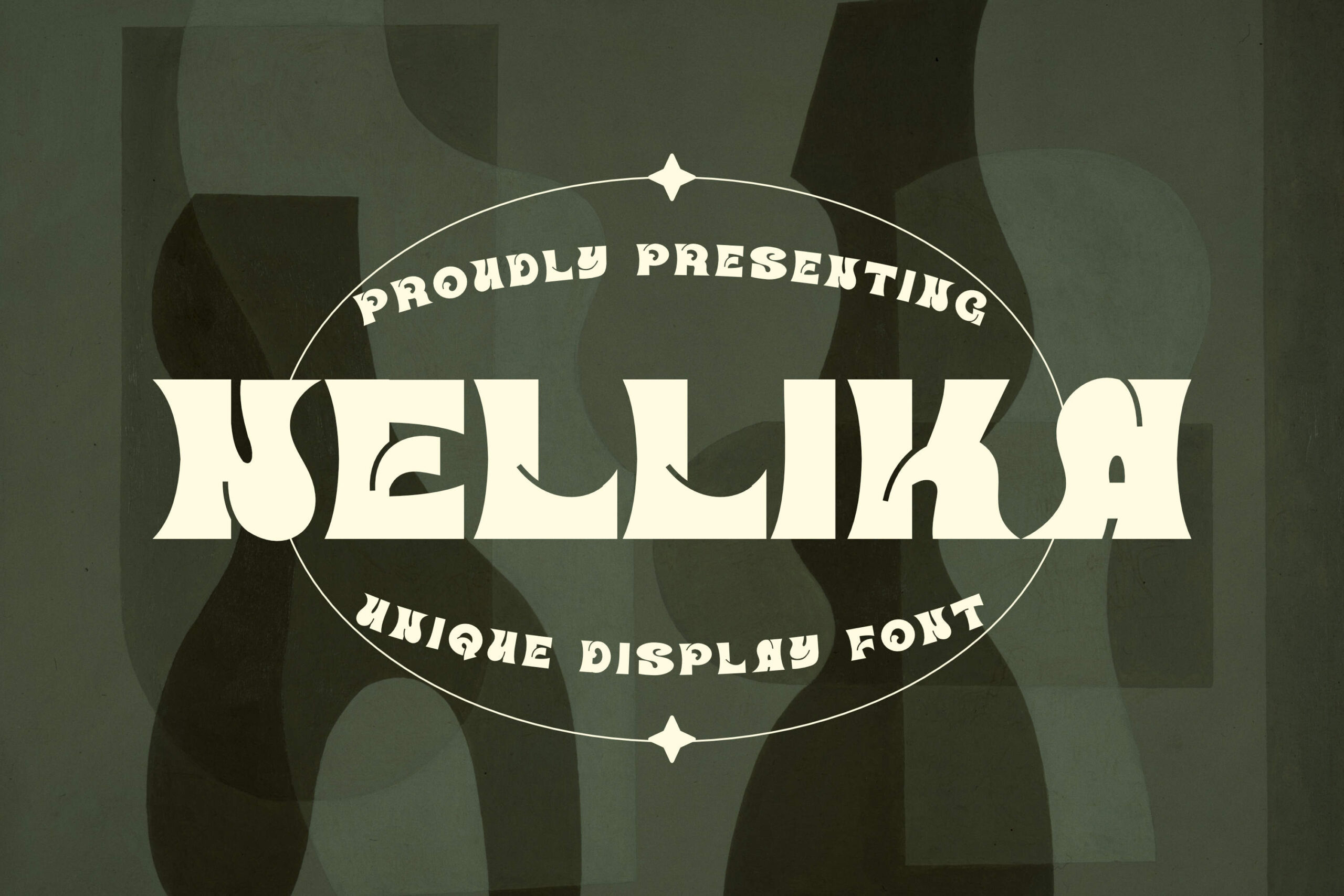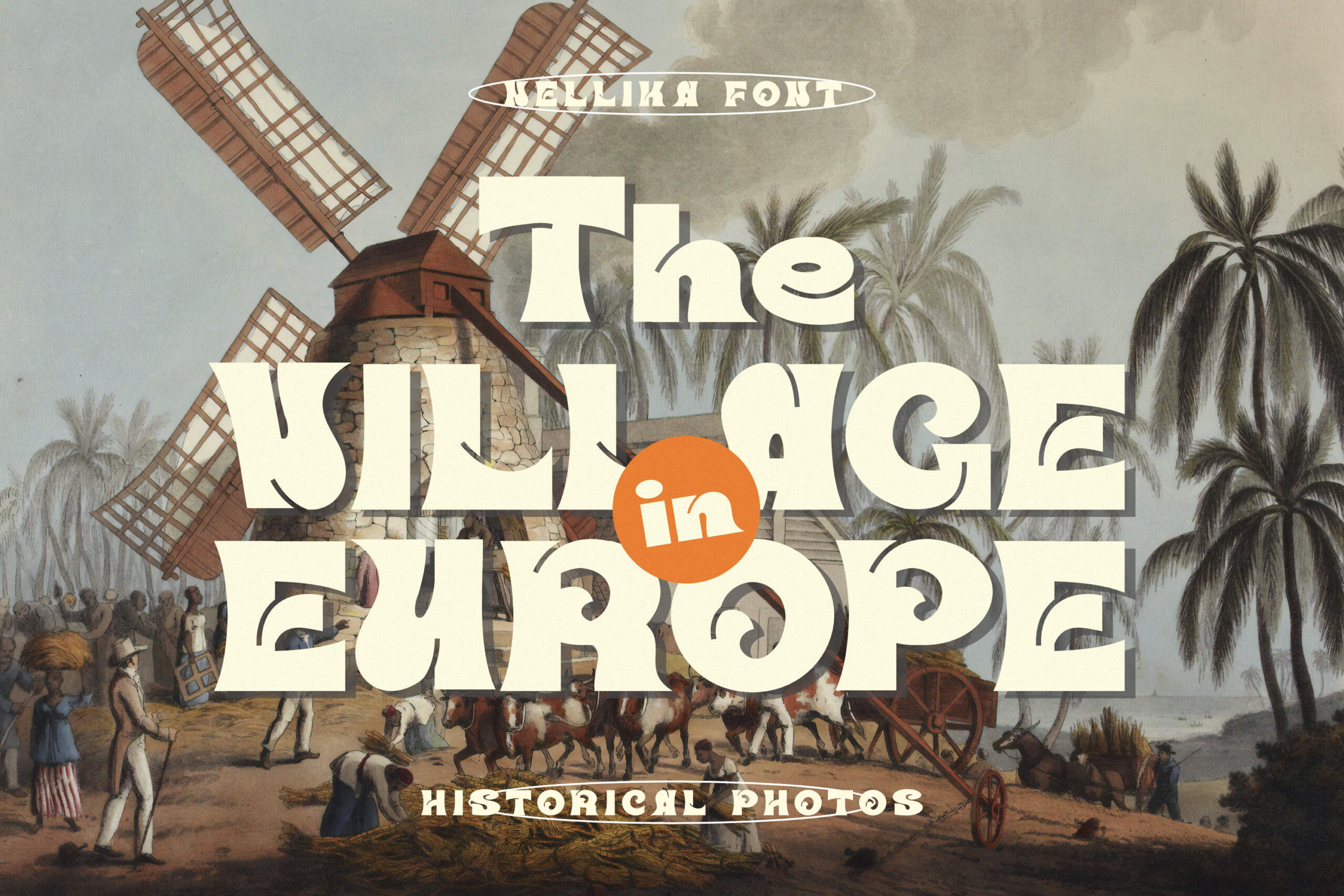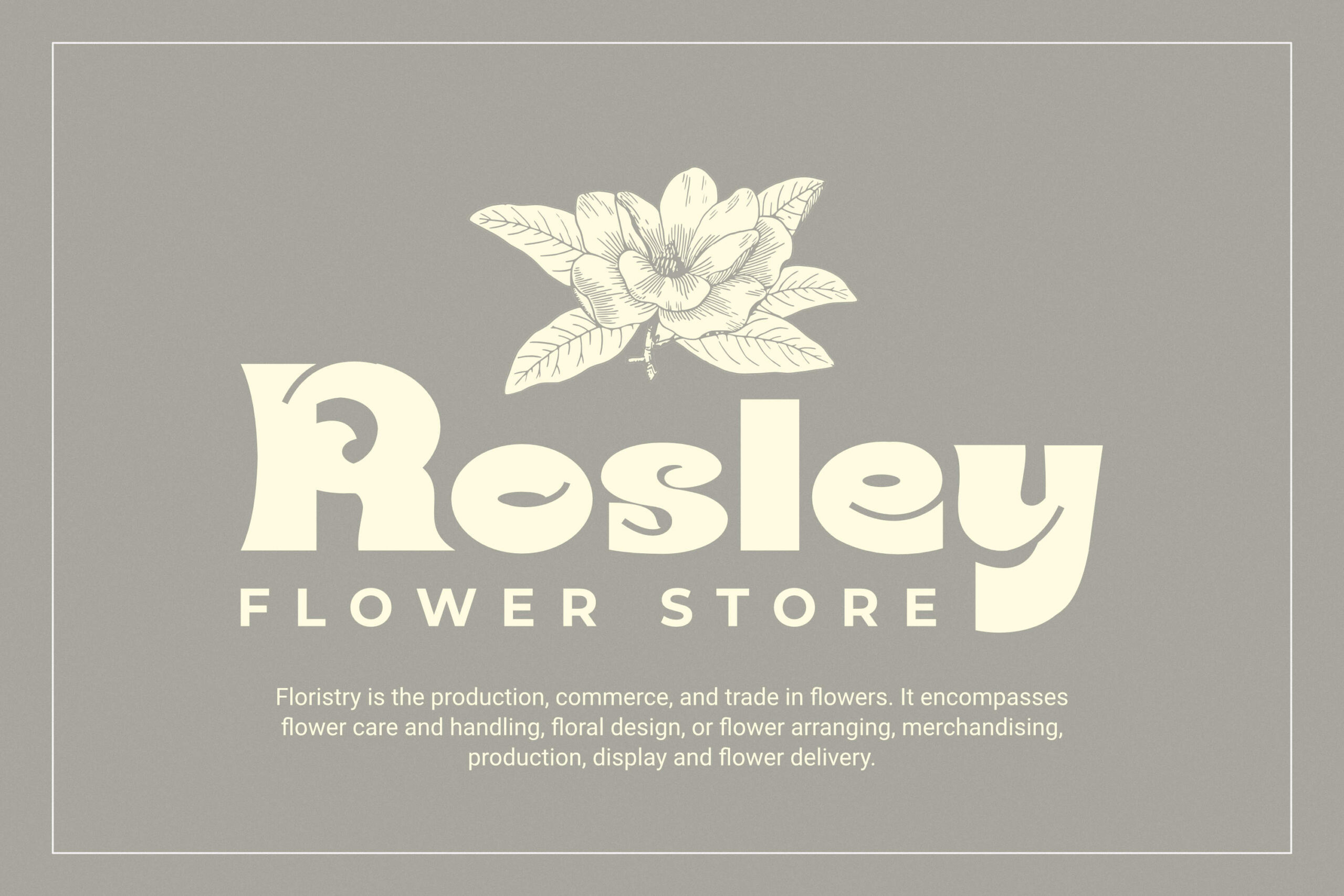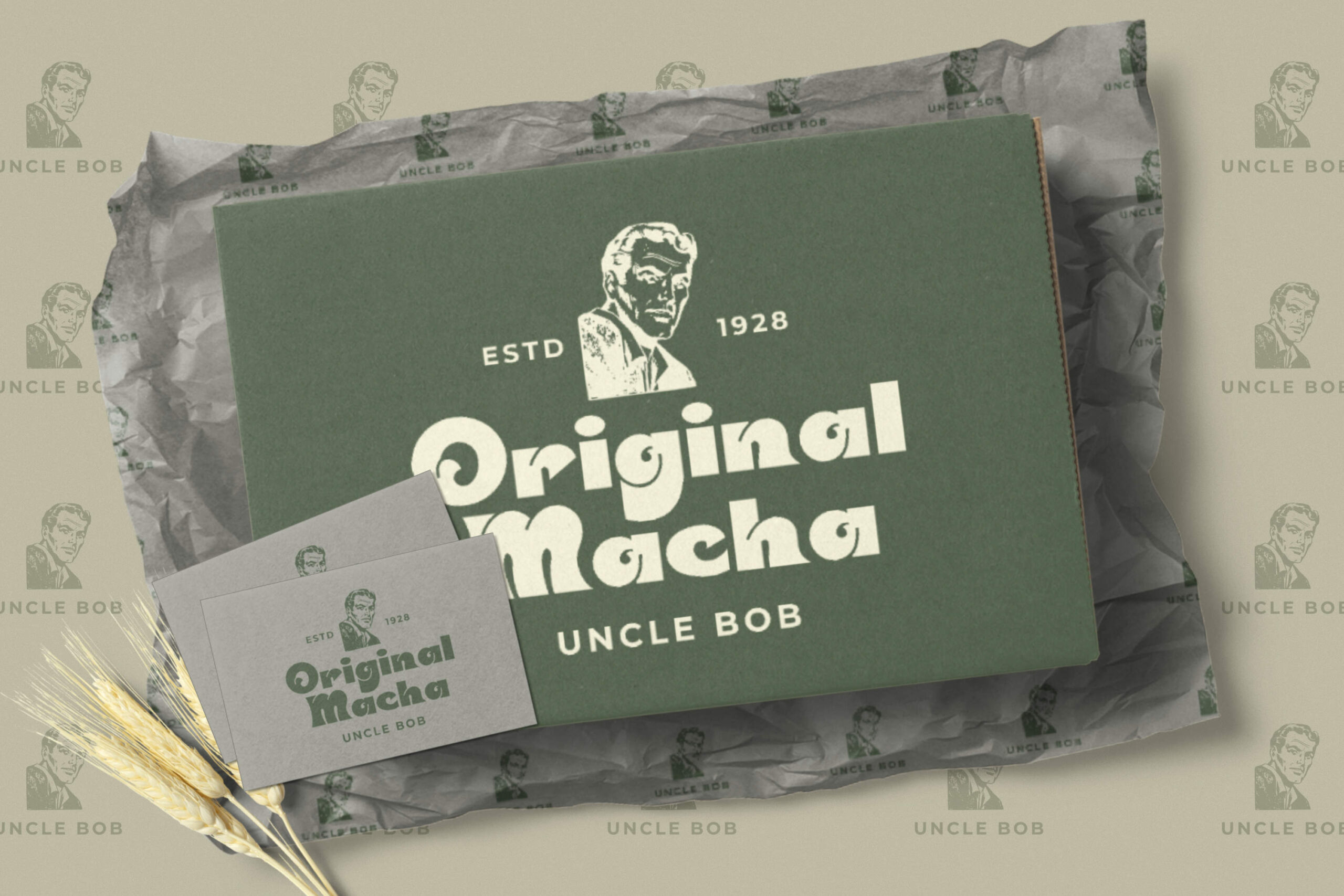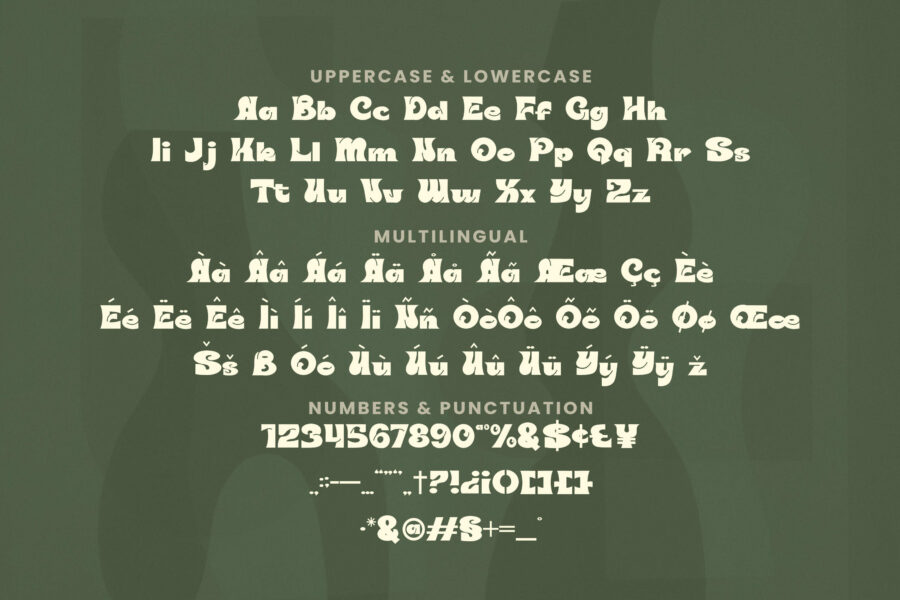
Nellika
Glyphs for Nellika
Nellika is a bold retro display font with a unique personality, combining groovy curves with sharp cuts that evoke a sense of nostalgic charm. Inspired by vintage poster typography and classic European signage, Nellika stands out with its unusual letterforms and playful style, making it ideal for headlines, logos, packaging, and editorial designs that demand attention.
With complete uppercase and lowercase characters, multilingual support, numerals, and various punctuation marks, Nellika offers both function and flair. Whether you’re designing a brand with a touch of vintage flair or creating a standout display piece, this font delivers a strong, artistic presence that sparks visual curiosity.